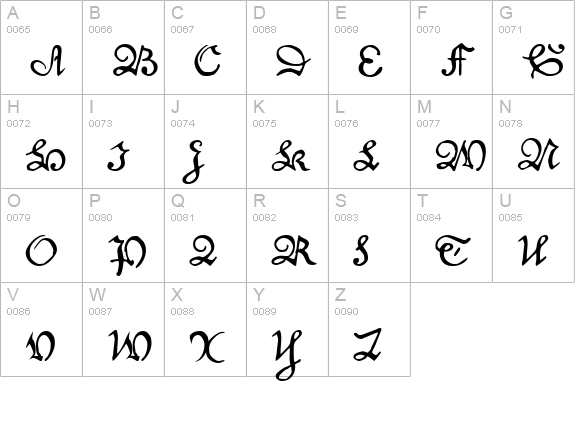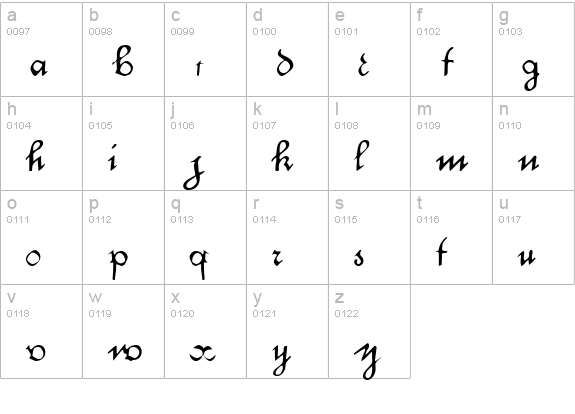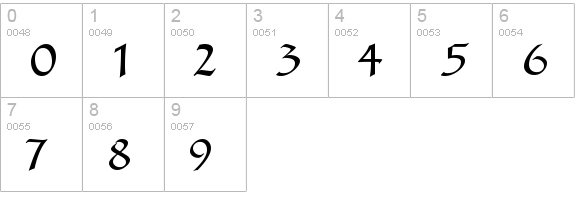
Engrossing Font Details
Engrossing font is a captivating and stylish typeface that effortlessly draws in the reader's attention with its elegant and modern design. This font exudes a sense of sophistication and creativity, making it perfect for a wide range of design projects. What makes Engrossing font even more appealing is that it is available for free download at FontsMarket.com. This means that you can easily access and use this stunning font in your projects without any cost. Whether you are working on a branding project, website design, or any other creative endeavor, Engrossing font is sure to enhance the overall look and feel with its unique charm. With its sleek lines and versatile style, Engrossing font is a must-have addition to any designer's toolkit. Download it for free today and elevate your designs to the next level!